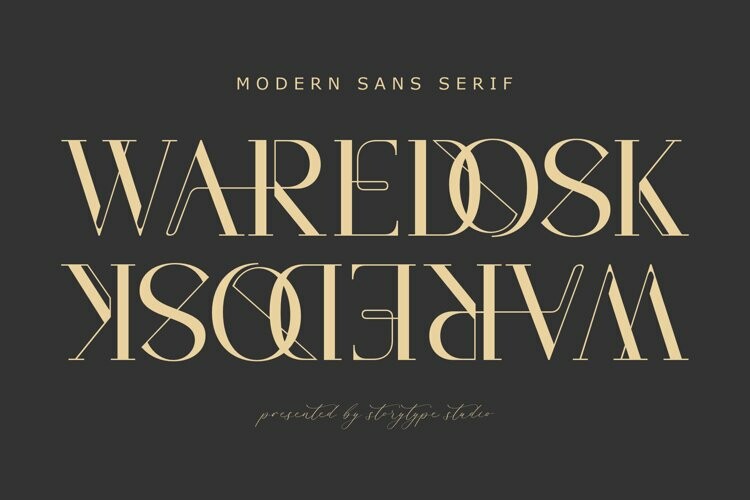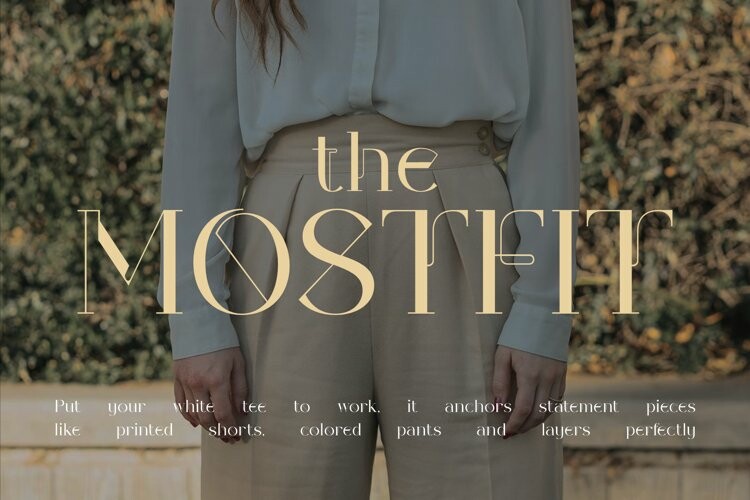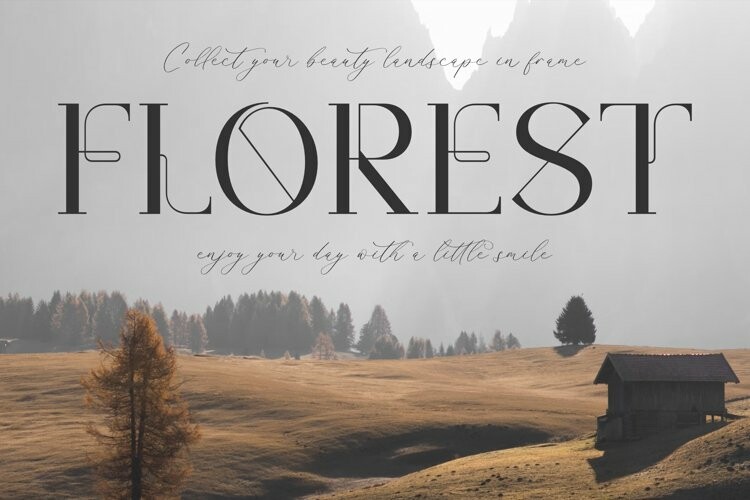
Waredosk Font
Waredosk FontProudly present Waredosk Typeface , created by Storytype,
A serif modern and classic typeface that has own unique style & modern look.
This typeface is perfect for an elegant & luxury logo, book or movie title design, fashion brand, magazine, clothes, lettering, quotes, and so much more.